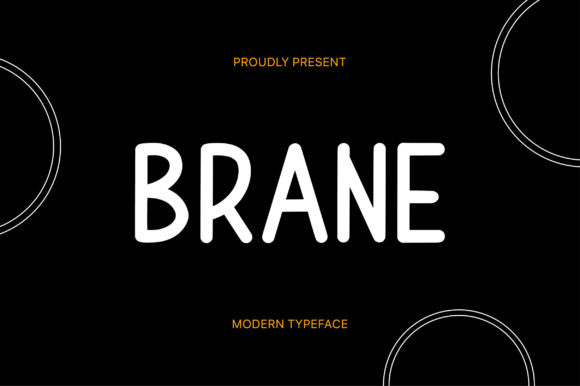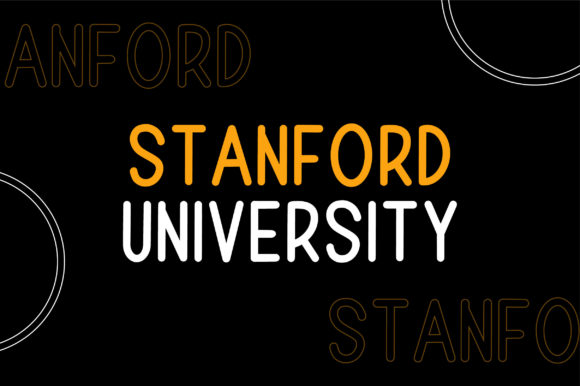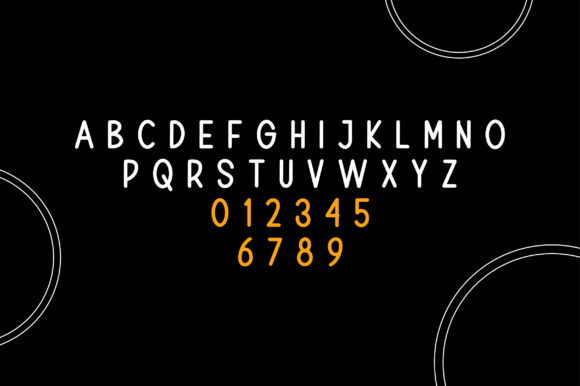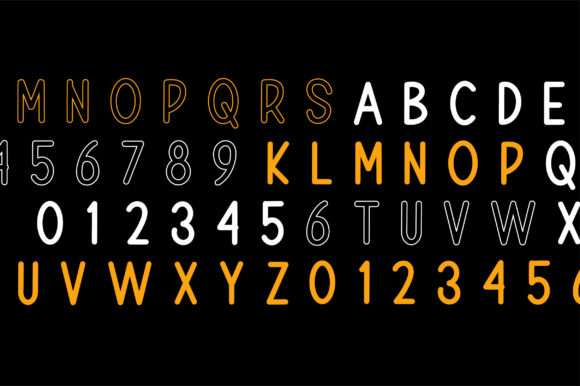
About Brane Font
“Brane” is a versatile handwritten font that effortlessly combines simplicity and cleanliness, offering an adaptable style suitable for a variety of design applications. This ravishing font can be employed to create gorgeous wedding invitations, beautiful stationery art, eye-catching social media posts, and much more, thanks to its charming and adaptable nature.
The simplicity and cleanliness of “Brane” make it a standout choice for a range of design projects. The font’s unpretentious style allows it to seamlessly integrate into various creative endeavors, offering a fresh and modern aesthetic that appeals to a wide audience.
Wedding invitations adorned with “Brane” exude a charming and contemporary elegance. The font’s clean lines and simple yet refined script create a timeless appeal, setting the tone for a beautifully designed celebration.
In the realm of stationery art, “Brane” becomes a valuable tool for crafting visually appealing and sophisticated designs. Its adaptable nature allows it to enhance the aesthetics of various projects, from personalized notes to art prints.
Social media posts come alive with the eye-catching quality of “Brane.” Whether you’re sharing quotes, announcements, or engaging content, the font’s simplicity and adaptability make it a versatile choice for creating visually appealing and shareable designs.
The clean and handwritten style of “Brane” extends its usability to a wide range of applications, allowing it to complement diverse design needs. From logos to branding materials, the font adds a touch of charm without sacrificing clarity.
In summary, “Brane” is more than just a font; it’s a versatile and adaptable tool that effortlessly combines simplicity and elegance. Its clean lines and ravishing style make it suitable for crafting gorgeous wedding invitations, beautiful stationery art, eye-catching social media posts, and various other design projects. Fall for the charm of “Brane” as it becomes a go-to choice for infusing your creations with a touch of contemporary elegance.